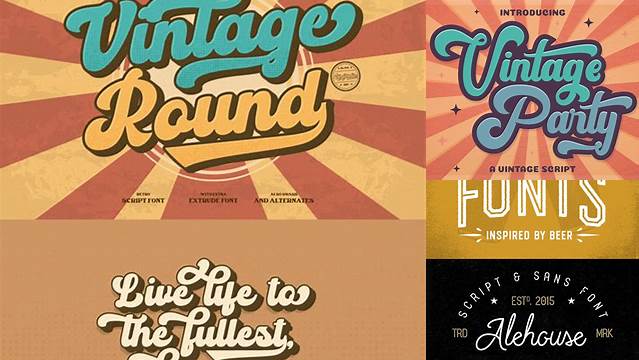
Download Free Vintage Poster Fonts: A Comprehensive Guide
Hey there, design enthusiasts! Ready to infuse your projects with a dose of nostalgia and timeless appeal? You're in the right place! This guide is all about free vintage poster fonts, and we're diving deep to explore the best options, how to use them effectively, and where to find them. Whether you're a seasoned designer or just starting out, the right font can make all the difference. Let's get started!
Free Vintage Poster Fonts: Embracing Retro Aesthetics
Free vintage poster fonts capture the essence of bygone eras, from the roaring twenties to the psychedelic sixties. These fonts are designed to evoke a sense of history, authenticity, and charm, making them perfect for various design projects. Think about the classic movie posters, concert flyers, and advertisements that defined their time. These fonts allow you to transport your audience back to those iconic periods, instantly adding character and visual interest to your designs. The beauty of these fonts lies in their unique characteristics – the serifs, the bold strokes, the playful curves, or the distressed textures. Each font has its personality, ready to communicate a story or convey a specific mood. When you choose a free vintage poster font, consider its style and how it complements your overall design concept. Does it fit the era you are aiming for? Does it have the right level of detail to make a statement? Does it work well with other design elements such as colors and images? The right font can pull the entire project together, while the wrong one can just as easily ruin it. Experimentation and exploring different fonts is key to finding the best match for your needs.
This guide will explore various types of vintage fonts and where to find them. We'll cover everything from Art Deco-inspired fonts, perfect for a Gatsby-esque design, to grungy and distressed fonts that give off a raw, vintage appeal. We'll also share resources for downloading these fonts safely and legally. Because with so many amazing fonts available, it is easy to get lost in the abundance of choices. So, let’s jump right into the world of these fonts and discover how they can enhance your design projects.
Finding the Best Free Vintage Poster Font Resources
Types of Free Vintage Poster Fonts: Styles and Characteristics
Free vintage poster fonts come in various styles, each with unique characteristics that evoke different moods and aesthetics. One popular style is the Art Deco font, with its geometric shapes, bold lines, and elegant curves. These fonts are perfect for designs that aim for sophistication and glamour. Another classic style is the slab serif font, which features heavy, rectangular serifs. These fonts are often used to convey a sense of strength and stability, commonly seen in vintage advertising posters. Script fonts, mimicking handwriting, add a touch of elegance and personalization to your designs. They are great for adding a touch of vintage romance or creating a handcrafted feel. Another is the distressed font, which simulates the effects of age and wear. These fonts, with their rough edges and uneven surfaces, lend a raw, authentic feel to your designs.
When selecting the right font, consider the mood and message you want to convey. A bold, blocky font might be ideal for a vintage movie poster, while a delicate script font could be perfect for an invitation. Combining different font styles can add visual interest and sophistication to your designs. However, be careful not to overdo it. A well-balanced combination of two or three fonts usually works best. Experiment with font sizes and weights to create a visual hierarchy that guides the reader's eye. Understanding the different types of vintage fonts and their characteristics is essential to achieving the desired aesthetic in your design projects. Choose the right fonts and watch your designs come to life with the charm and character of the past.
Utilizing Free Vintage Poster Fonts in Your Design Projects
Free vintage poster fonts are incredibly versatile and can be used in various design projects. They work exceptionally well for posters, flyers, and advertisements, instantly adding a vintage feel. A vintage poster font can transform a simple design into an eye-catching piece, perfect for promoting events, products, or services. These fonts are also perfect for branding and logo design. Whether you're creating a logo for a retro-themed business or a modern company looking to add a touch of nostalgia, these fonts can provide a unique and memorable identity. Vintage fonts can be used to design website headers, blog titles, and other text elements, contributing to a cohesive and visually appealing web design. They can also be used for social media graphics, helping your posts stand out in the crowded digital landscape.
When incorporating these fonts into your projects, consider the overall design aesthetic. Complement the font with suitable imagery, colors, and other design elements to create a cohesive look. For example, you might pair a bold, blocky font with distressed textures and muted colors to create a vintage poster. Alternatively, you can match an elegant script font with delicate illustrations and pastel colors for a romantic, vintage vibe. Always pay attention to readability. Vintage fonts can sometimes be challenging to read, especially at small sizes. Ensure that your text is legible and that the font complements the design. Proper planning and thoughtful execution are important when utilizing these fonts. With a little creativity, free vintage poster fonts can elevate your designs, adding that extra something that sets them apart.
Pairing Free Vintage Poster Fonts with Complementary Design Elements
Pairing free vintage poster fonts with complementary design elements is crucial to create visually appealing and cohesive designs. Choose color palettes that enhance the vintage aesthetic. Muted, earthy tones, such as browns, greens, and creams, work well for a classic, retro look. You can also use bold, contrasting colors for a more eye-catching design. A well-chosen color palette will complement your font and help set the tone of your design. Selecting images that reflect the vintage theme is important. Use vintage photographs, illustrations, or textures to enhance the overall aesthetic. Consider adding vintage textures like paper, grunge, or halftone effects to add a feeling of depth and authenticity. Experiment with layouts and compositions that reflect the design era you're aiming for. For instance, Art Deco fonts are best paired with symmetrical layouts and bold graphic elements. Remember that balance, contrast, and hierarchy are important in any design. Use the font's size, weight, and color to create a visual hierarchy that guides the viewer's eye. Consider the amount of text and spacing.
Top Free Vintage Poster Fonts: Our Recommendations
Choosing the right free vintage poster font can be overwhelming. Here's a selection of recommended fonts to get you started. For Art Deco designs, consider a font like